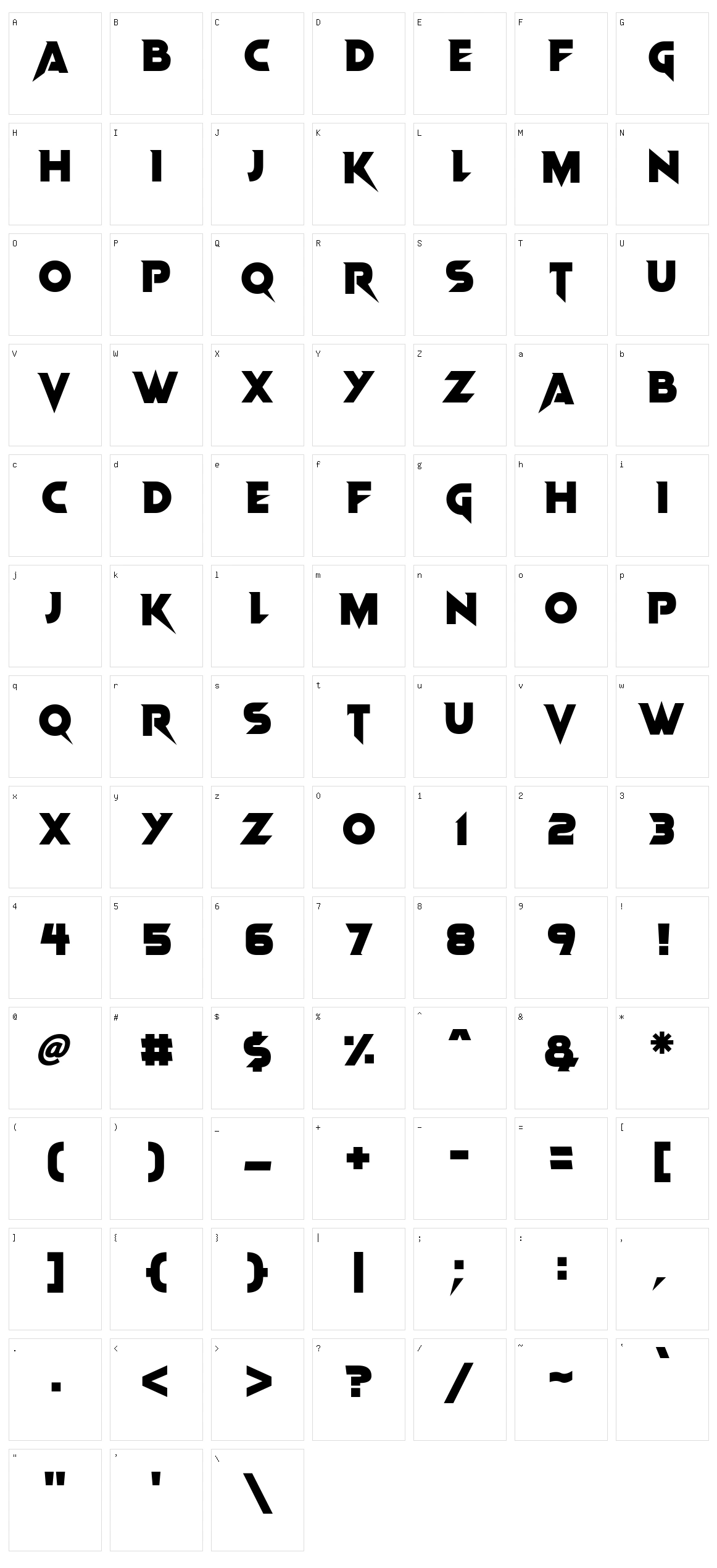
Vampire Wars
Designed by: Hawtpixel
Vampire Wars V1.3
* Kerning cleared - redone - preview added to "section" character for Dafont
* Kerning improvement tweaks on letters P, R, D
* Euro character support (all common accents and composites)